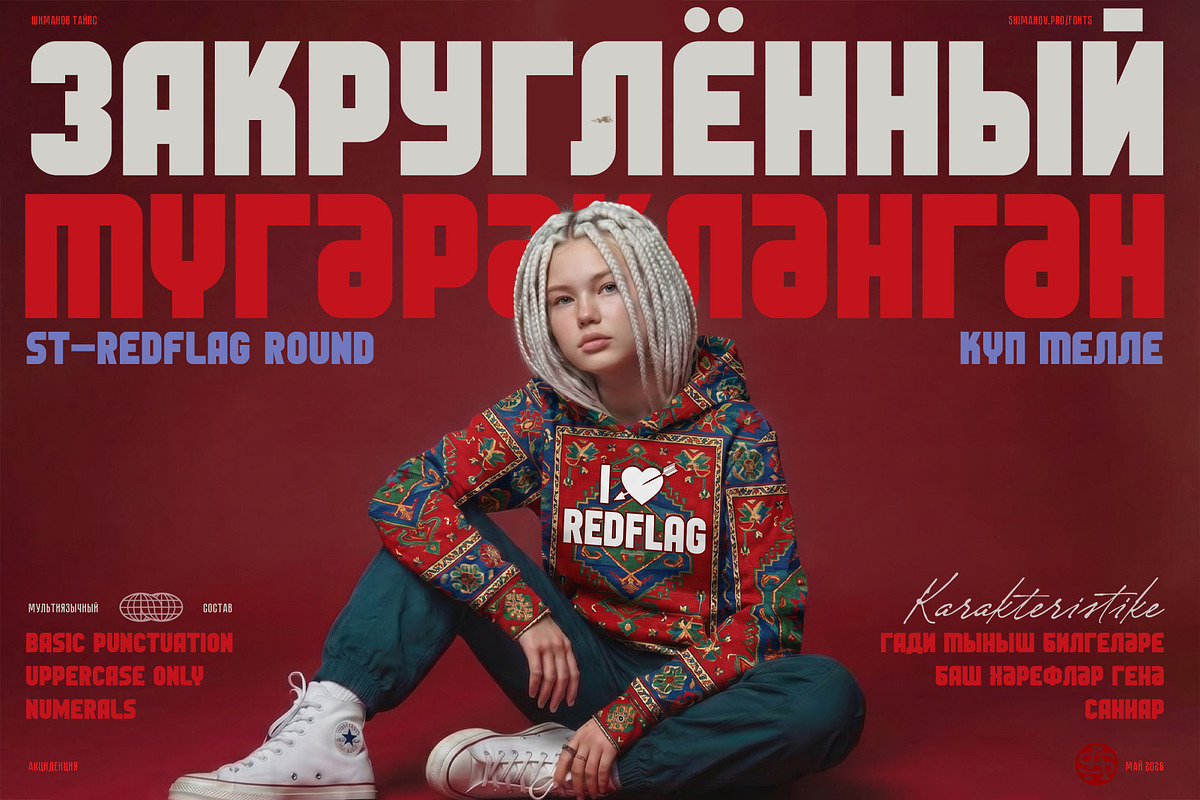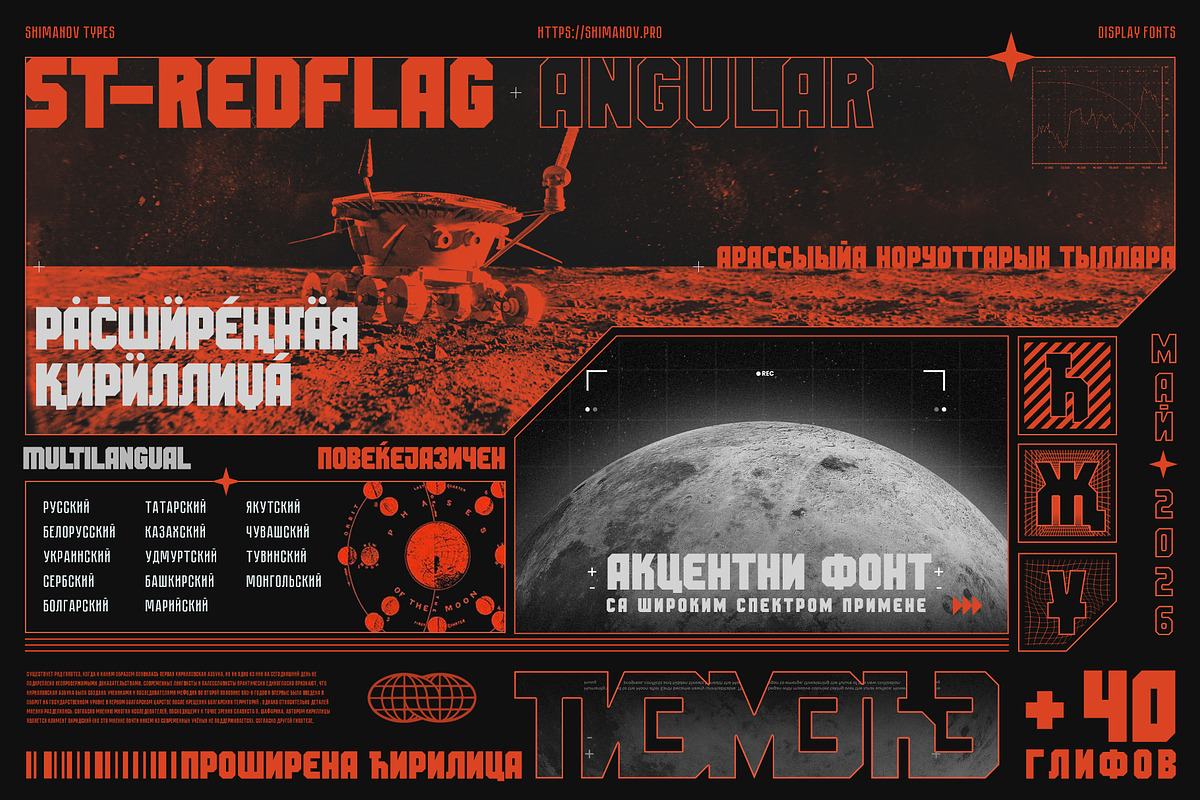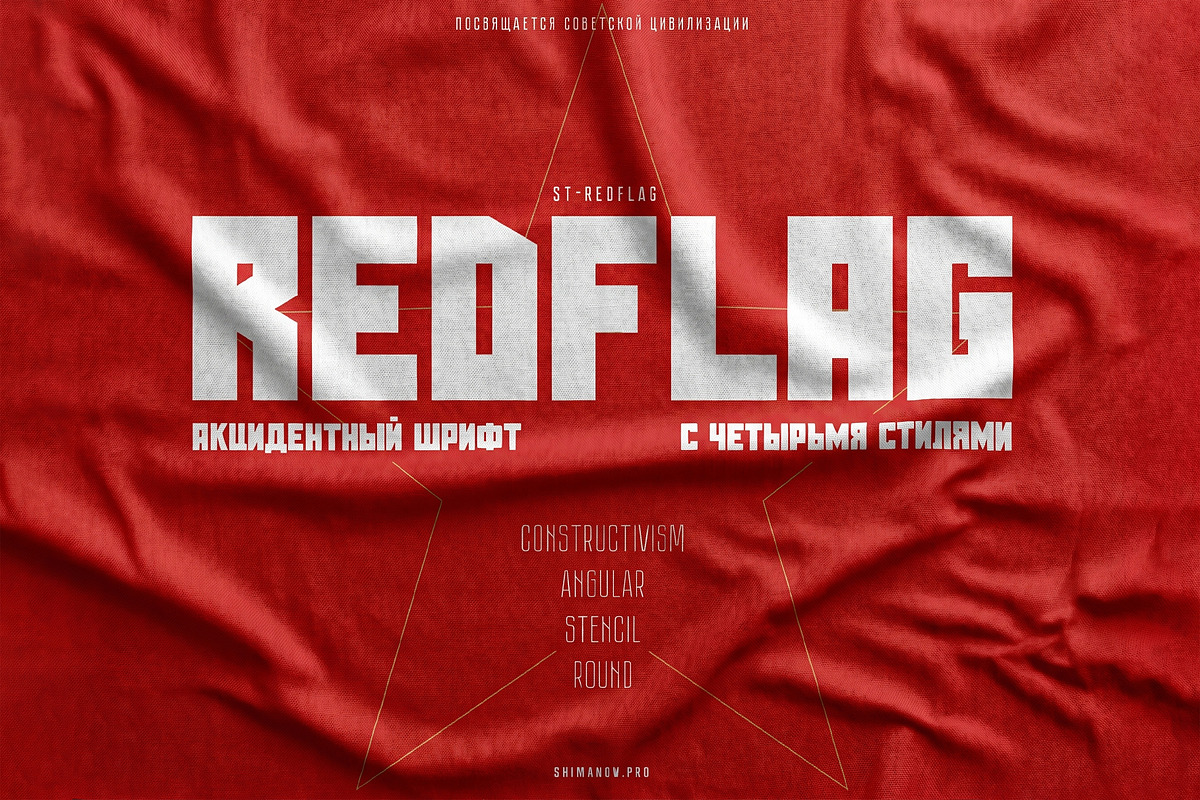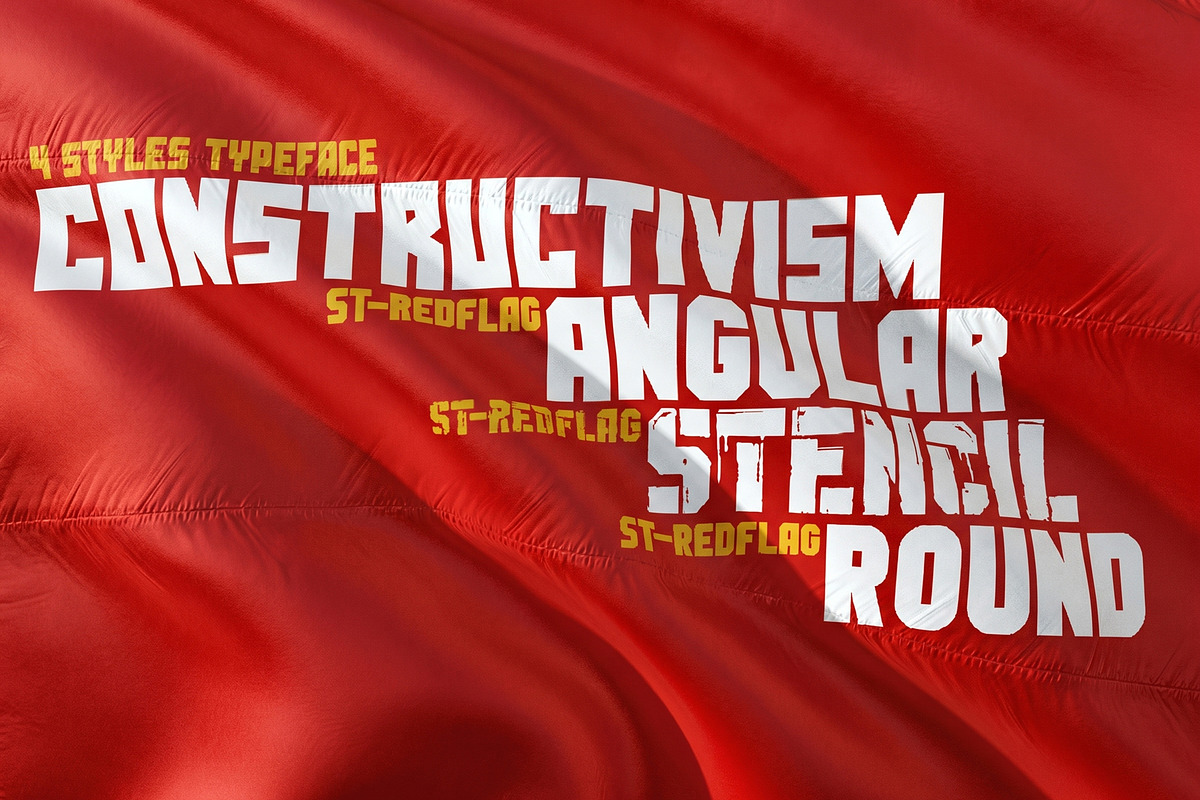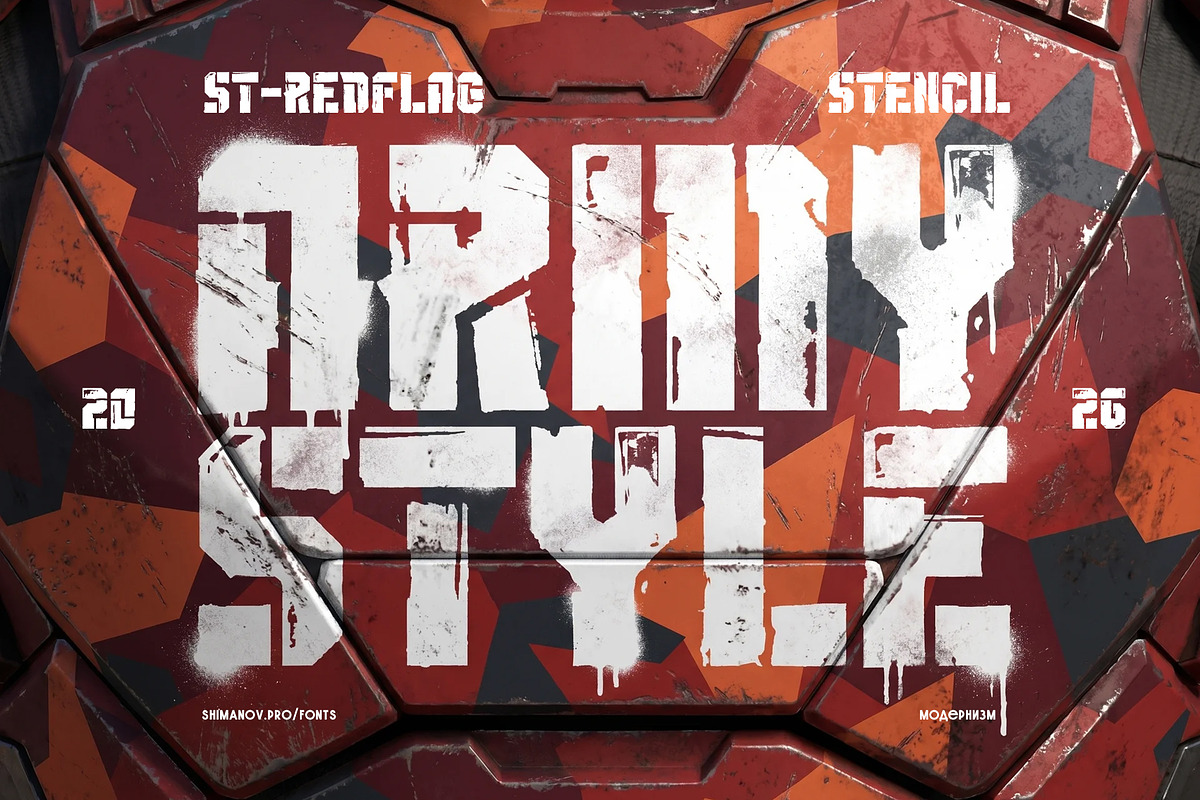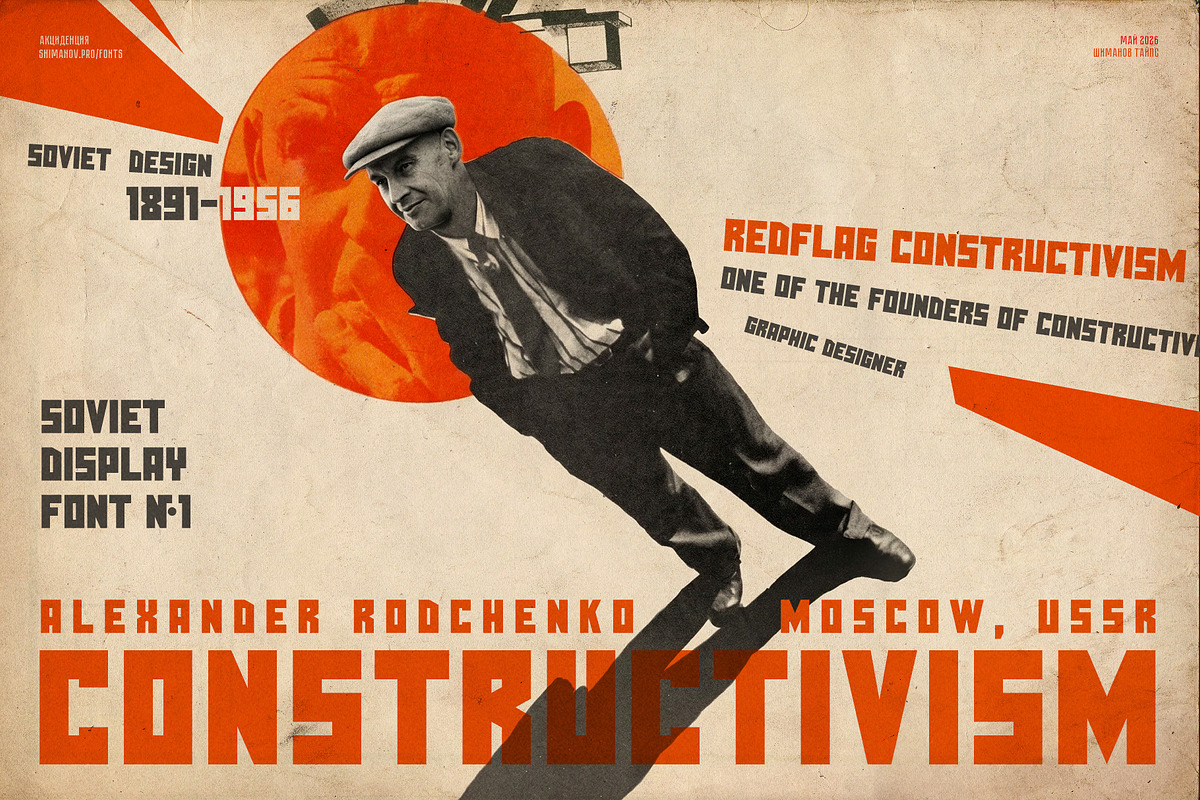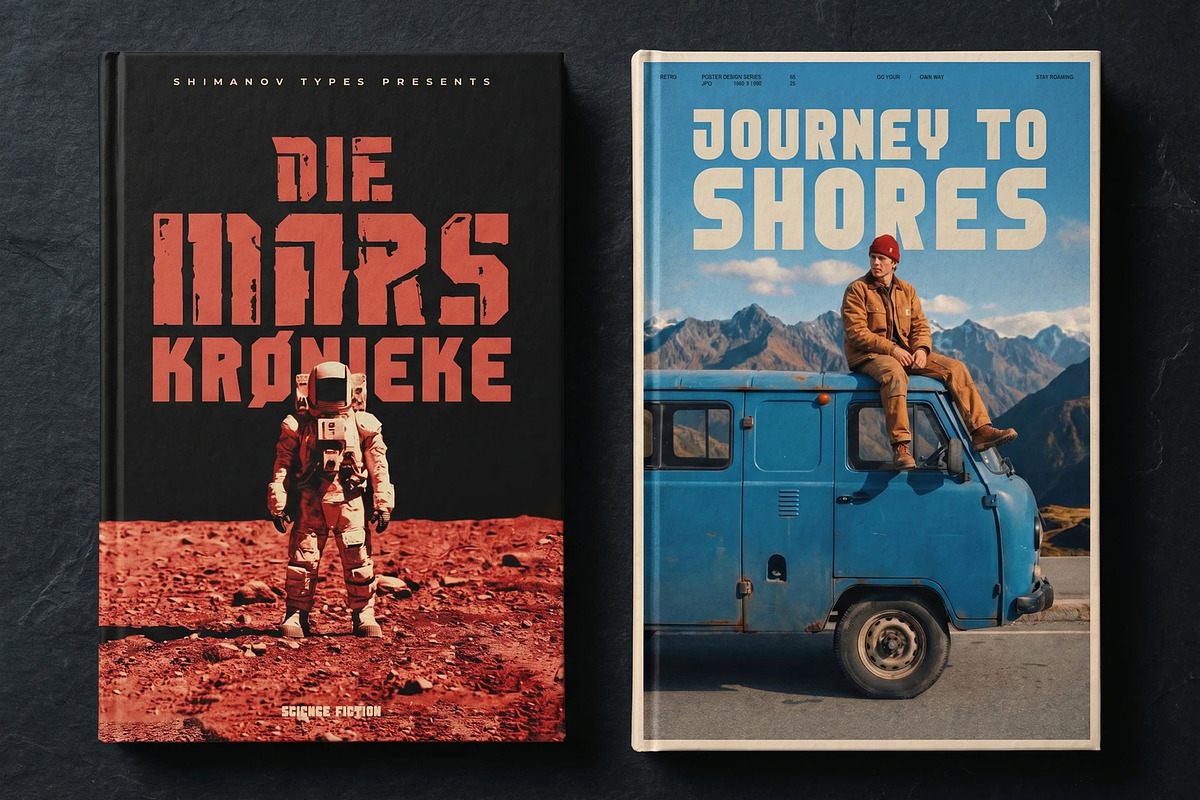
ST-REDFLAG - grotesque evolution
ST-REDFLAG is a display grotesque typeface exploring the evolution of Soviet grotesques of the 20th century and their applied potential. The family consists of four styles unified by consistent stroke weight and shared metrics, yet distinguished by their geometry and contextual references. Each style maintains core proportions and structural integrity, shifting visual emphasis toward specific applications without altering weight.
The Constructivism style draws on early Soviet poster graphics, offering strict forms for direct and confident communication. Angular transports the letterforms into the second half of the 20th century, adding dynamism characteristic of sports identity and action cinema. Round develops the theme of retrofuturism, softening corners for applications in the music industry and game development while maintaining structural rigidity. Stencil introduces military and grunge aesthetics through deliberately irregular outlines, maximizing decorative potential.
The family demonstrates how a single stroke weight can adapt to different media and visual contexts. The family supports extended Latin and Cyrillic character sets, including letters, numerals, and basic punctuation, ensuring broad typographic flexibility across international projects. OTF format.